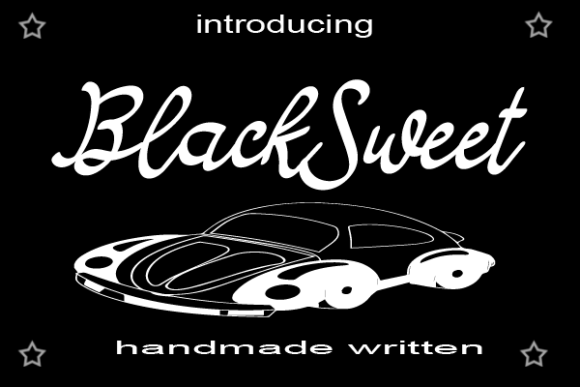
Adding a Touch of Sweetness to Your Designs
As a designer, there’s nothing quite like the thrill of bringing a client’s vision to life. Whether it’s a wedding invitation, a birthday card, or a heartfelt letter, there’s something special about creating something that’s truly personal and meaningful. And that’s exactly where the Blacksweet Font comes in – a dainty and flowing handwritten font that’s sure to add a touch of sweetness to any design.
With its sweet and joyful feel, the Blacksweet Font is perfect for adding a romantic and personalized touch to your designs. Whether you’re a seasoned pro or just starting out, this versatile font is a valuable addition to any designer’s toolkit. By incorporating the Blacksweet Font into your projects, you’ll be able to create beautiful, one-of-a-kind pieces that truly stand out.
Key Features of Blacksweet Font
- Character Set: The font includes a comprehensive set of characters, including uppercase and lowercase letters, numbers, punctuation marks, and special characters, making it suitable for various applications.
- Unique Characteristics: The Blacksweet Font features a distinctive, modern design with bold lines and a sleek, minimalist aesthetic, making it ideal for use in digital and print media.
- Font Style: The font is available in a single style, but it can be easily customized to suit various design needs, from headings and titles to body text and captions.
- Font Weight: The Blacksweet Font has a medium weight, which provides a good balance between readability and visual impact, making it suitable for a wide range of applications.
Blacksweet Font Review
I recently had the chance to work with the Blacksweet Font, and I must say it’s a unique addition to any design project. ✨ One of the things that stands out about this font is its versatility. It can range from being a sleek, modern font to a more elegant, sophisticated one, depending on the context. The font’s clean lines and minimalist design make it easy to read and work with.
Here are some of the things that work well with the Blacksweet Font:
- ✨ Versatility: As mentioned earlier, this font can adapt to different design styles and contexts.
- ✨ Easy to read: The clean lines and simple design make it a pleasure to work with.
- ✨ Great for headings: The font’s bold lines and sleek design make it perfect for headings and titles.
- ⚠️ Limited character set: The font’s character set is not as extensive as some other fonts, which can limit its use in certain contexts.
- ⚠️ May not be suitable for body text: While the font is great for headings and titles, it may not be the best choice for body text due to its simplicity.
Overall, I would say that the Blacksweet Font is a solid choice for designers looking for a versatile, modern font. While it may have some limitations, its strengths far outweigh its weaknesses.
Tips for Getting the Most Out of Blacksweet Font
The Blacksweet font is a modern and sleek font that works well for headings and titles. To get the most out of it, use it sparingly and pair it with a clear and concise message. Also, experiment with different font sizes and styles to create visual interest.
The Blacksweet font is commonly used for:
- Marketing materials and advertisements
Alternatives to Blacksweet Font
Great Vibes Font is a modern, elegant script font ideal for creating a sophisticated and luxurious feel. It’s perfect for wedding invitations, luxury brand logos, and high-end packaging designs.
Compared to Blacksweet Font, Great Vibes Font has a more refined and polished look, making it suitable for high-end designs. While Blacksweet Font has a bolder and more playful feel, Great Vibes Font is more understated and elegant.
Q: Is the Blacksweet Font compatible with variable font technology?
Yes, the Blacksweet Font is designed to work with variable font technology. This means that you can adjust font properties like weight, width, and slant using a single font file, rather than having to switch between multiple font files. This feature is supported in modern software applications and operating systems.